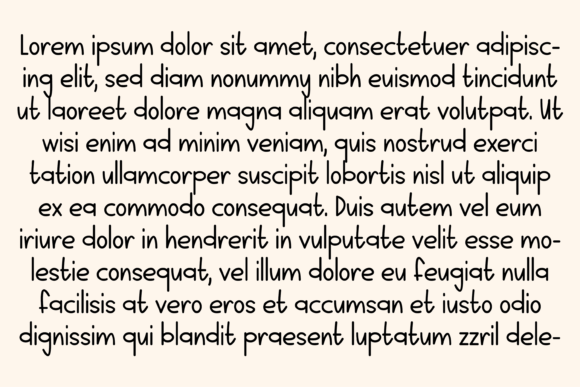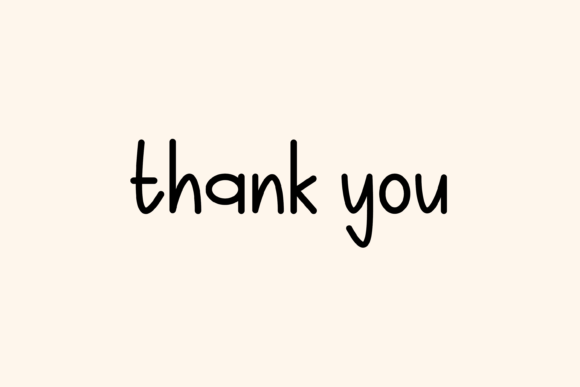
Grak Font: The Simple yet Whimsical Handwritten Font for Your Creative Projects
Are you looking for a font that can add a touch of simplicity and friendliness to your designs? Look no further than the Grak Font! This beautiful handwritten font is perfect for designers and crafters who want to create unique and eye-catching projects. In this article, we’ll dive into the features and benefits of the Grak Font and explore how you can use it to elevate your designs.
What is Grak Font?
Grak Font is a simple and friendly handwritten font that is designed to bring a touch of whimsy to your designs. Its quirky and charming style makes it perfect for a wide range of creative projects, from logos and wedding invitations to quotes, advertisements, and more. Whether you’re a designer, crafter, or DIY enthusiast, the Grak Font is sure to become a favorite in your collection.
Key Features of Grak Font
- Simple and Friendly: The Grak Font has a simple and approachable style that makes it easy to read and use in a variety of contexts.
- Whimsical and Quirky: With its playful and charming style, the Grak Font is perfect for adding a touch of personality to your designs.
- Handwritten: The Grak Font has a beautiful handwritten feel that gives it a personal and unique touch.
- Versatile: The Grak Font is suitable for a wide range of creative projects, from logos and branding to invitations, quotes, and more.
Benefits of Using Grak Font
So why choose the Grak Font for your creative projects? Here are just a few benefits of using this amazing font:
- Adds Personality: The Grak Font has a unique and playful style that can help your designs stand out from the crowd.
- Easy to Read: Despite its whimsical style, the Grak Font is easy to read and use in a variety of contexts.
- Versatile: The Grak Font is suitable for a wide range of creative projects, making it a great addition to your font collection.
- Time-Saving: With the Grak Font, you can create beautiful and unique designs in no time, saving you time and effort.
How to Use Grak Font in Your Designs
So how can you use the Grak Font in your designs? Here are a few ideas to get you started:
- Logos and Branding: Use the Grak Font to create a unique and memorable logo for your business or brand.
- Wedding Invitations: Add a touch of whimsy and romance to your wedding invitations with the Grak Font.
- Quotes and Posters: Use the Grak Font to create eye-catching quotes and posters that are sure to grab attention.
- Advertisements: The Grak Font is perfect for use in advertisements, where its playful style can help grab attention and drive sales.
- Print and Magazines: Use the Grak Font in your print designs, such as magazines, brochures, and flyers, to add a touch of personality and whimsy.
Tips for Getting the Most Out of Grak Font
Here are a few tips for getting the most out of the Grak Font:
- Experiment with Colors: The Grak Font looks great in a variety of colors, so don’t be afraid to experiment and find the perfect hue for your design.
- Mix and Match: Try pairing the Grak Font with other fonts to create a unique and eye-catching design.
- Play with Size: The Grak Font looks great in a variety of sizes, so experiment with different sizes to find the perfect fit for your design.
| Font Name | Grak Font |
| Author | Woracado |
In conclusion, the Grak Font is a simple yet whimsical handwritten font that is perfect for designers and crafters who want to add a touch of personality to their designs. With its friendly and approachable style, the Grak Font is suitable for a wide range of creative projects, from logos and branding to invitations, quotes, and more. Whether you’re a seasoned designer or just starting out, the Grak Font is sure to become a favorite in your collection.